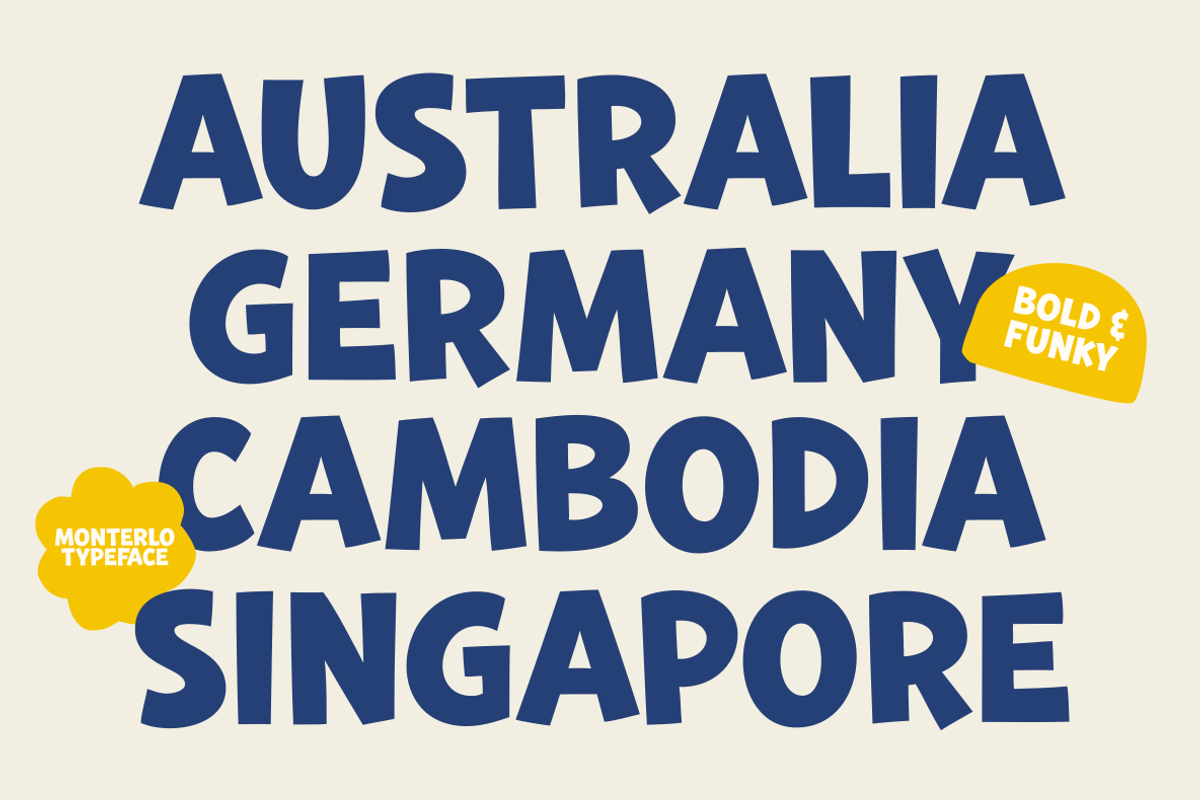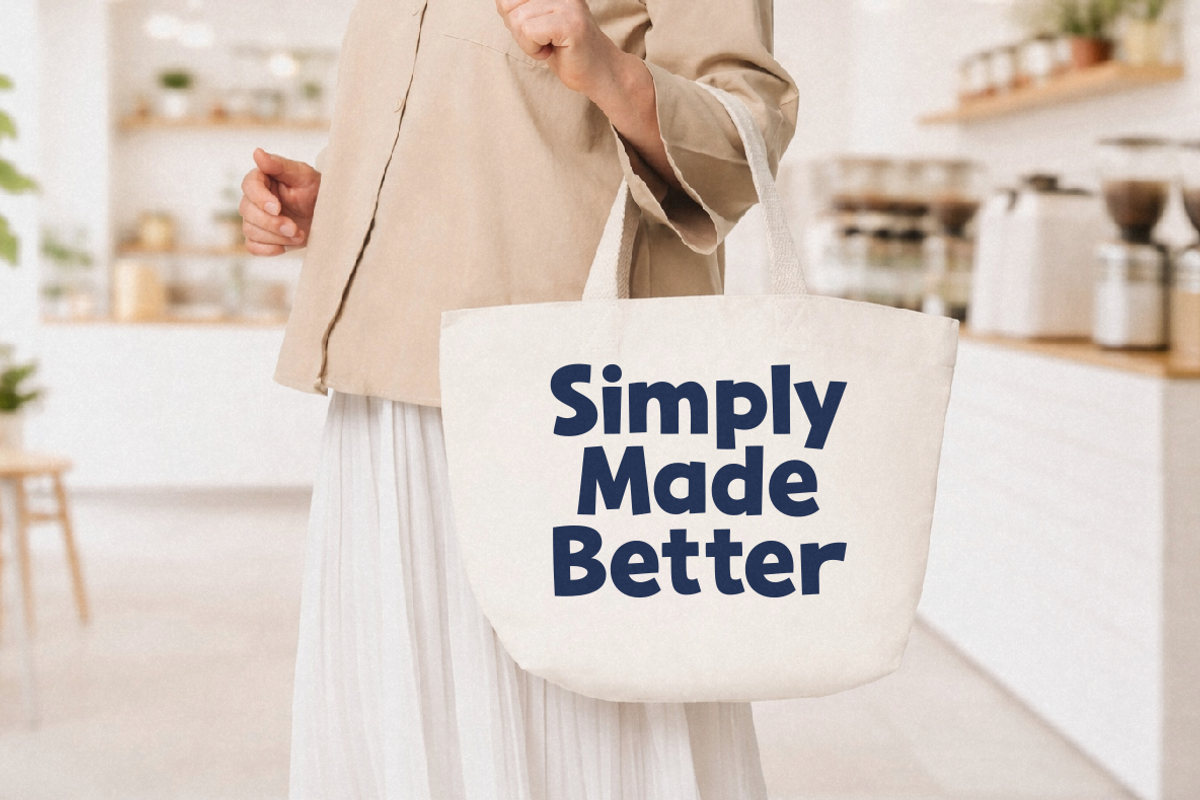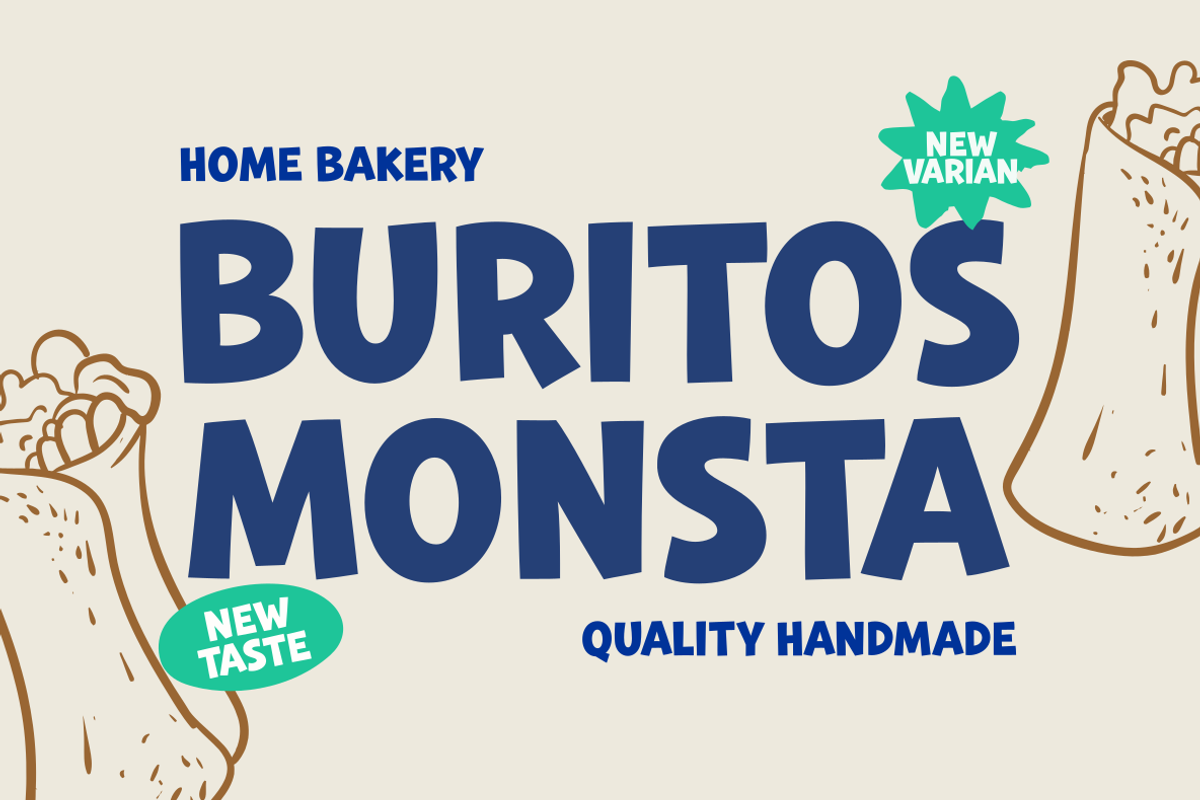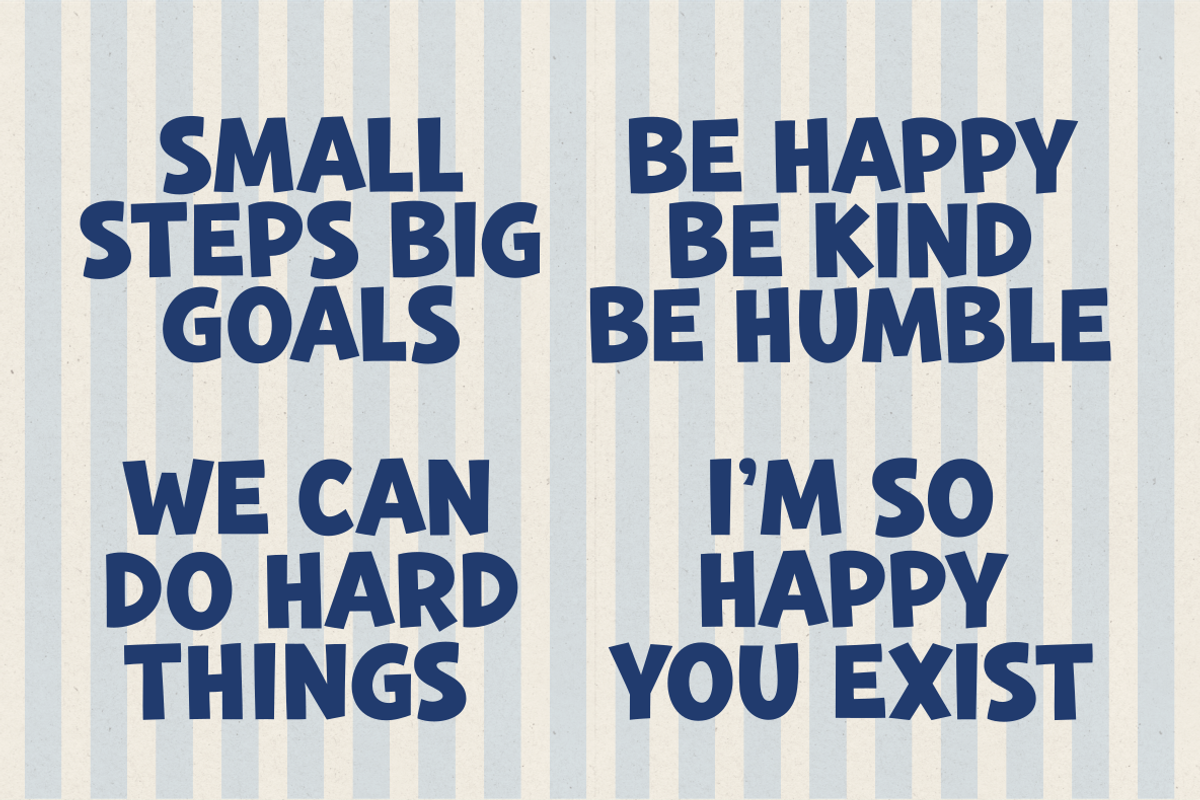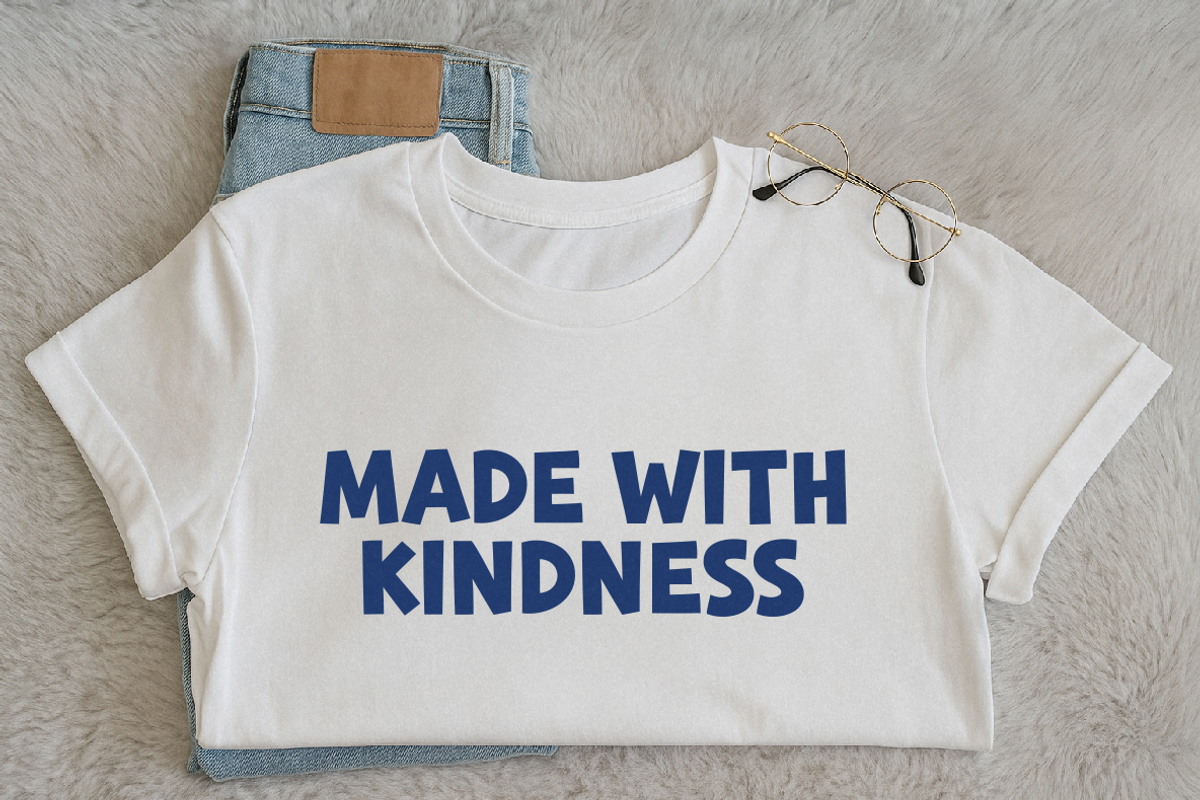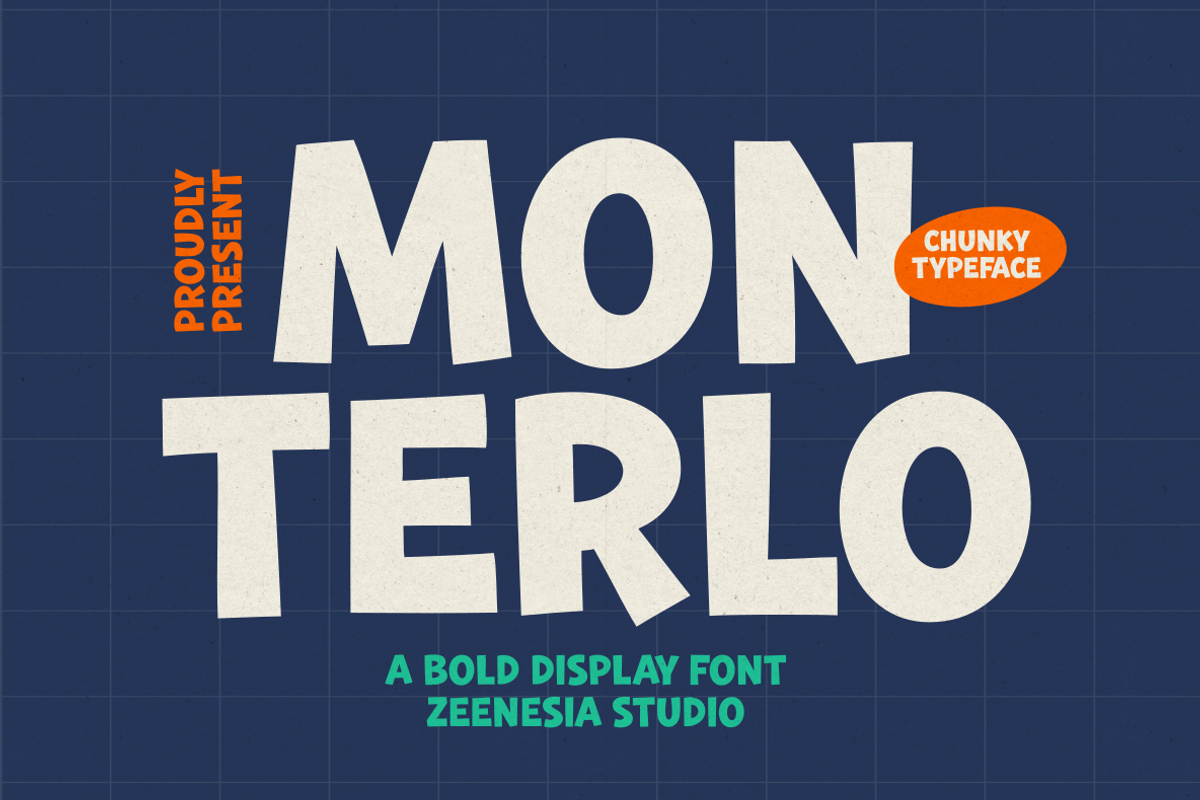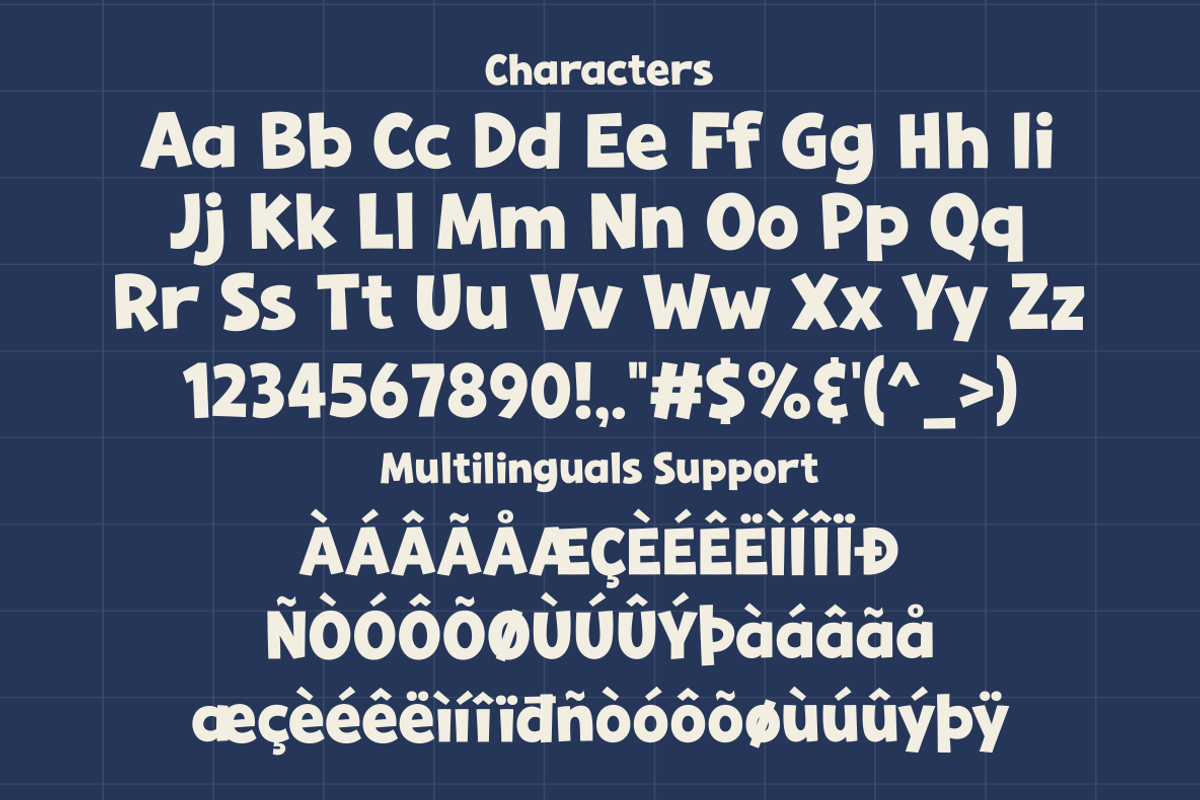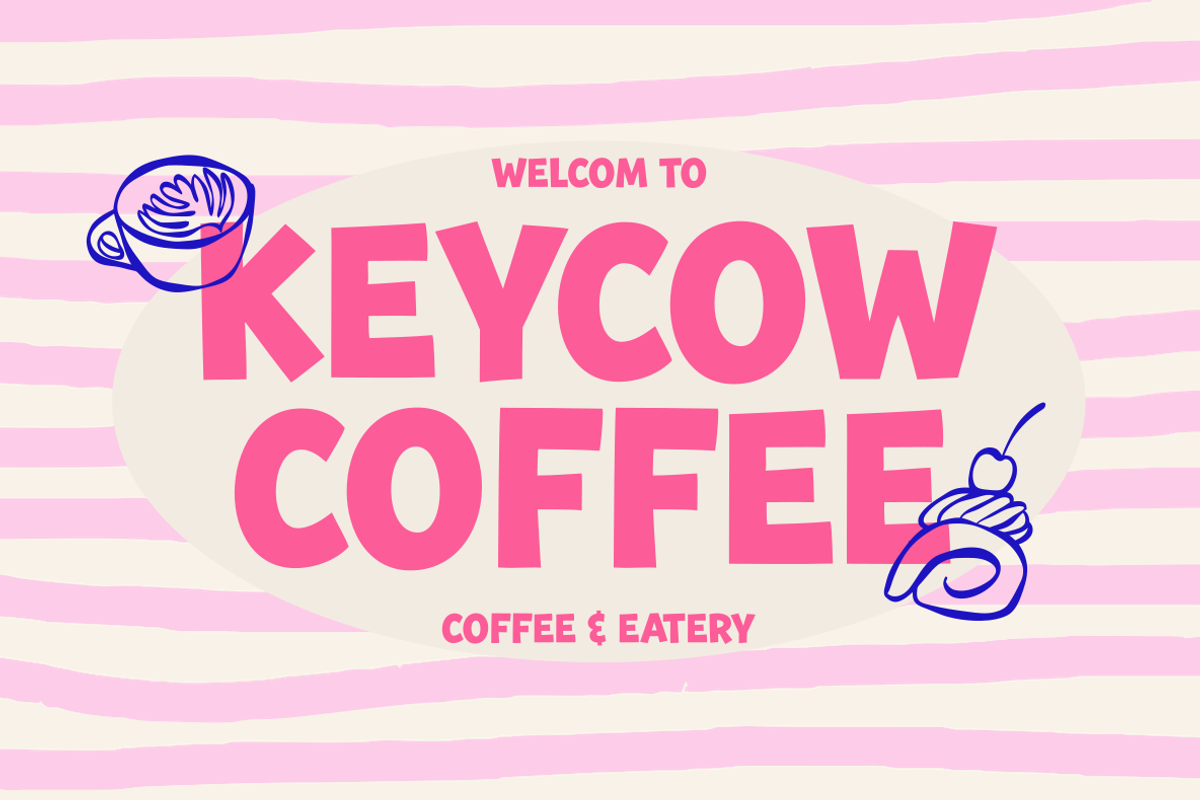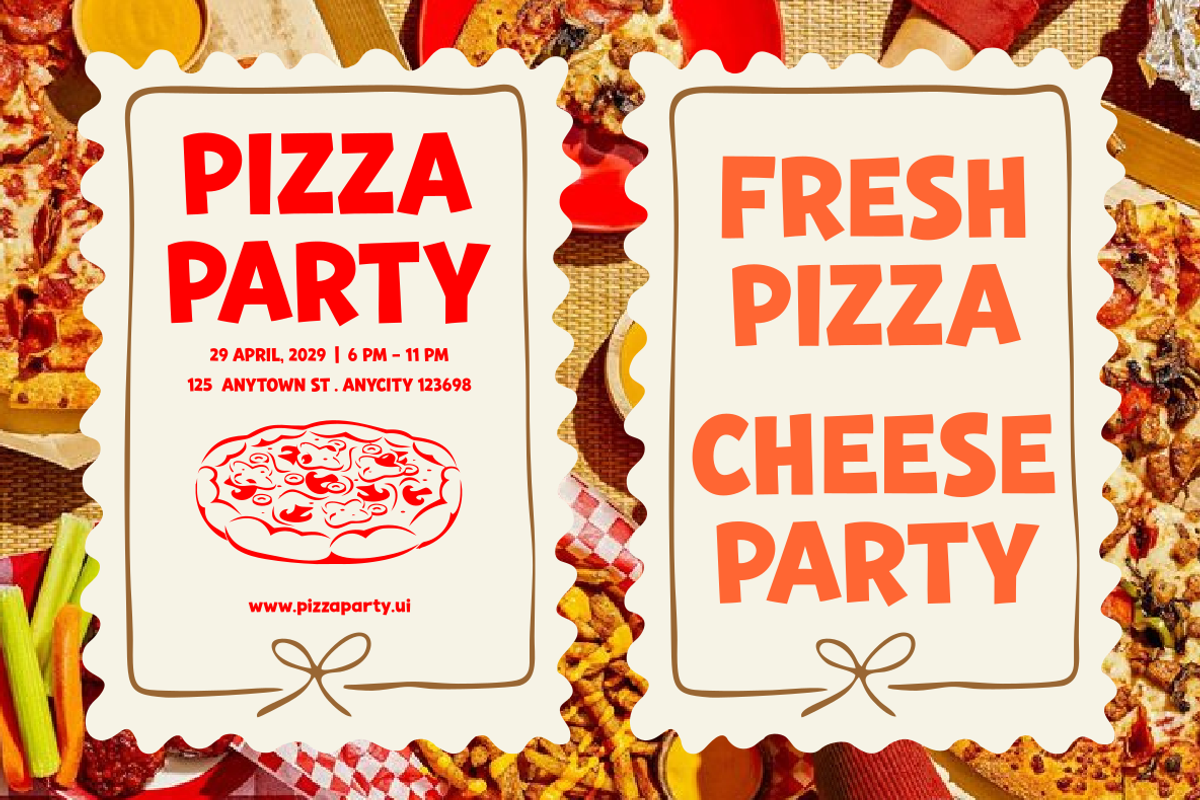
Monterlo
Monterlo is a bold display font built to command attention. With its solid structure, confident weight, and slightly dynamic angles, Monterlo delivers a powerful visual presence in any layout.
Designed for impactful headlines, branding, posters, and modern visual identities, this typeface balances strength with character. Its chunky form makes it perfect for projects that demand clarity, confidence, and memorability.